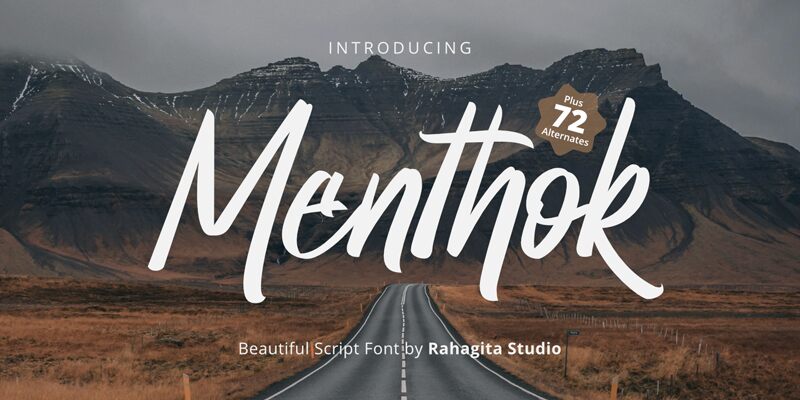
Menthok font by Rahagita Studio is a dynamic and contemporary signature script with an expressive, modern aesthetic. This free font effortlessly embodies a casual elegance that combines friendly vibes with style. Versatile and sleek, Menthok is beautifully aligned with all your stylish projects and sophisticated visual needs.
Menthok is excellent for use in creating logotypes, social media posts, posters, T-shirts, packaging, headlines, magazines, and apparel design. The font is also great for invitations, branding, stationery, product packaging, and all types of print and online advertising.